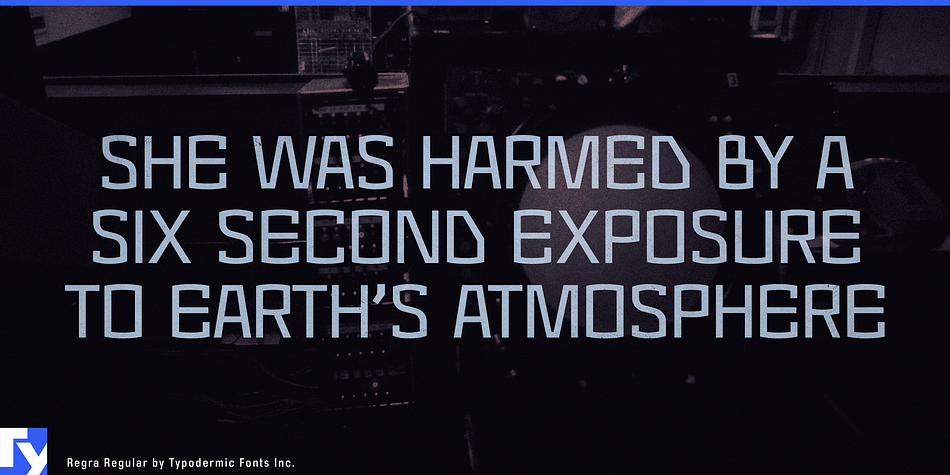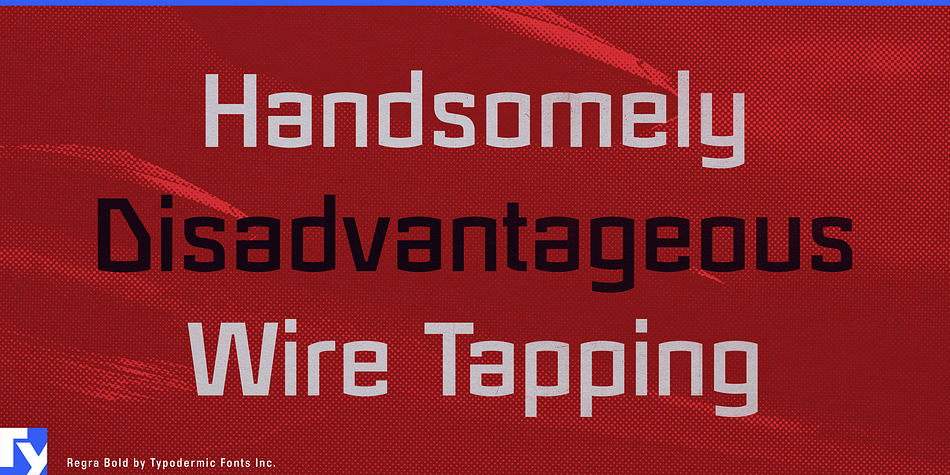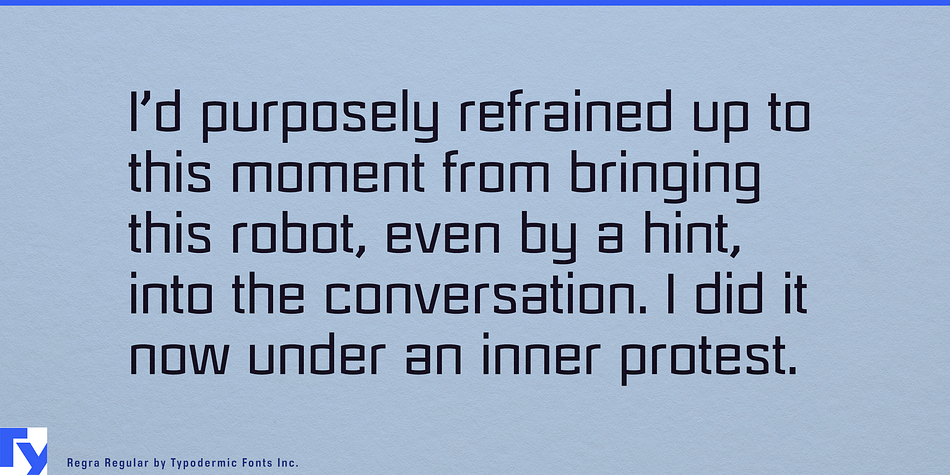
Regra is a display sans font family. This typeface has three styles and was published by Typodermic Fonts Inc.
egra is a high-tech, squaroid, contemporary typeface family.